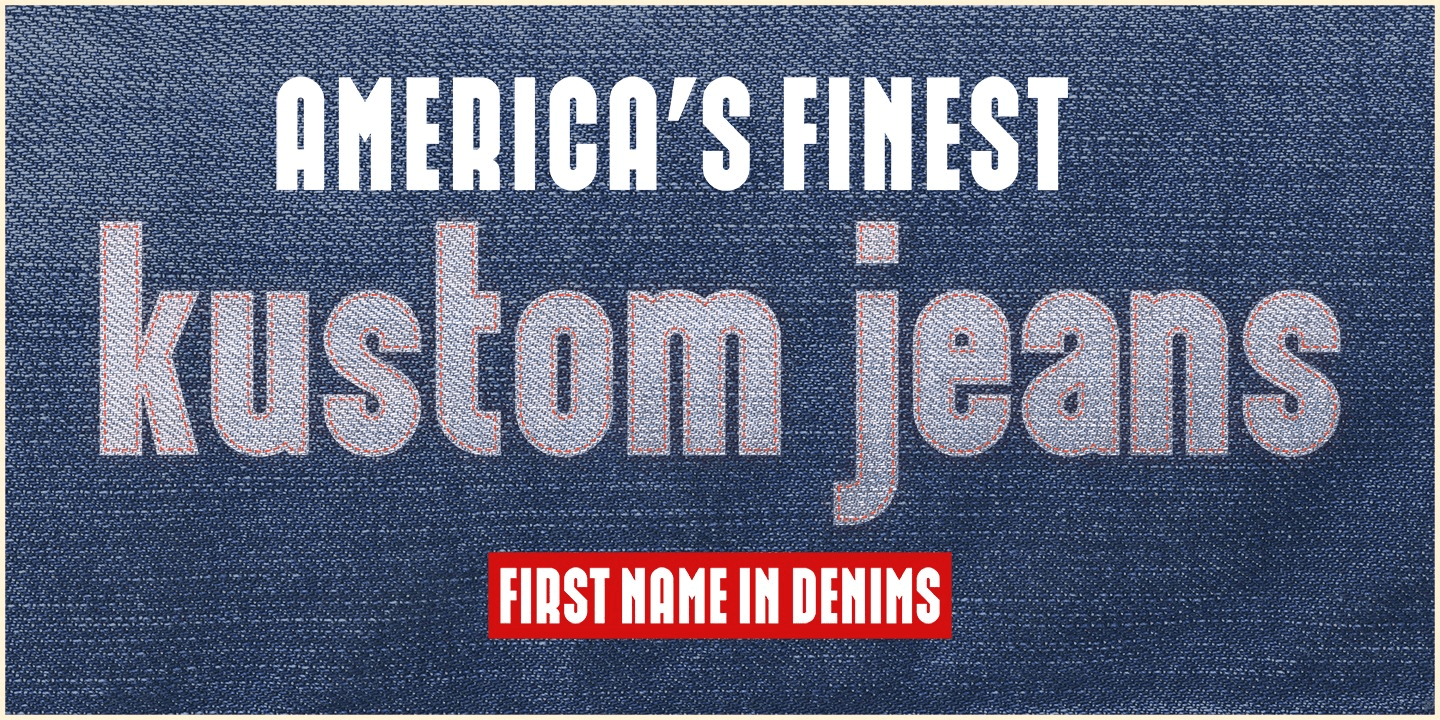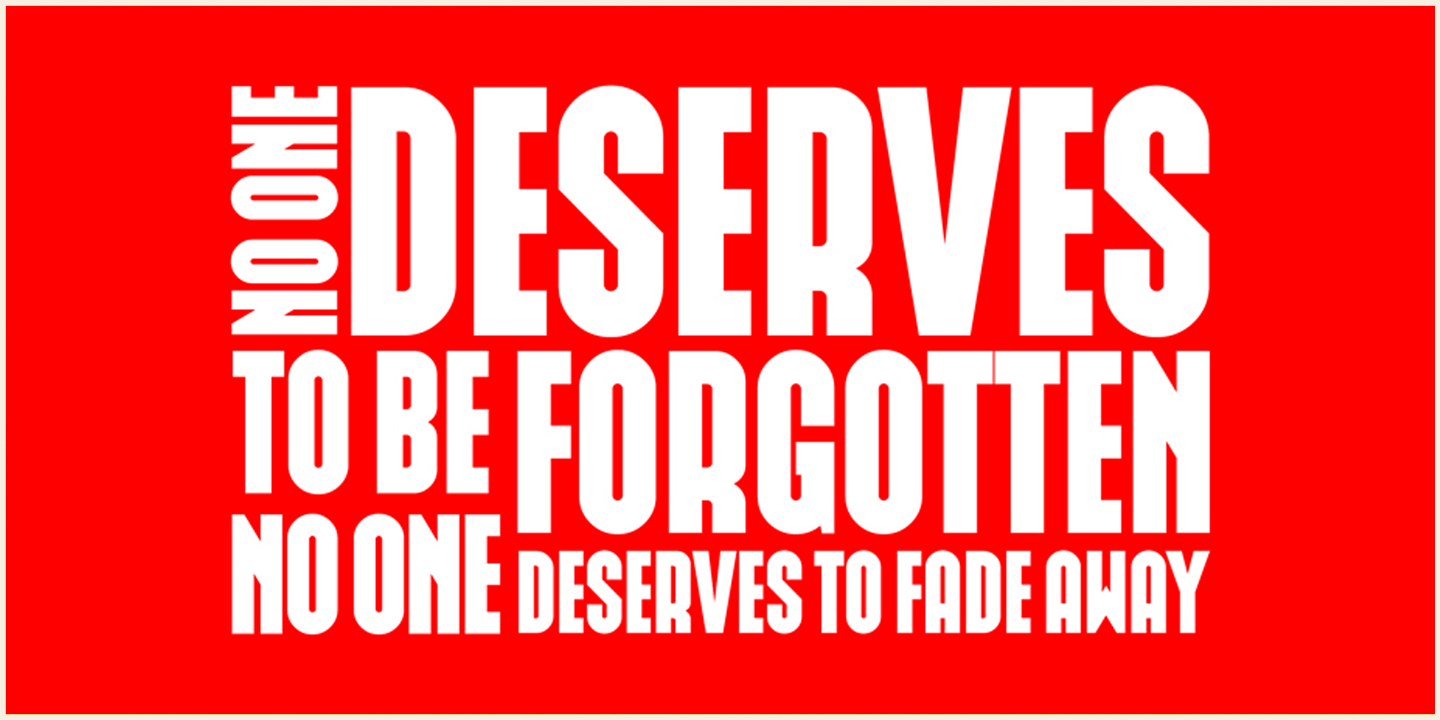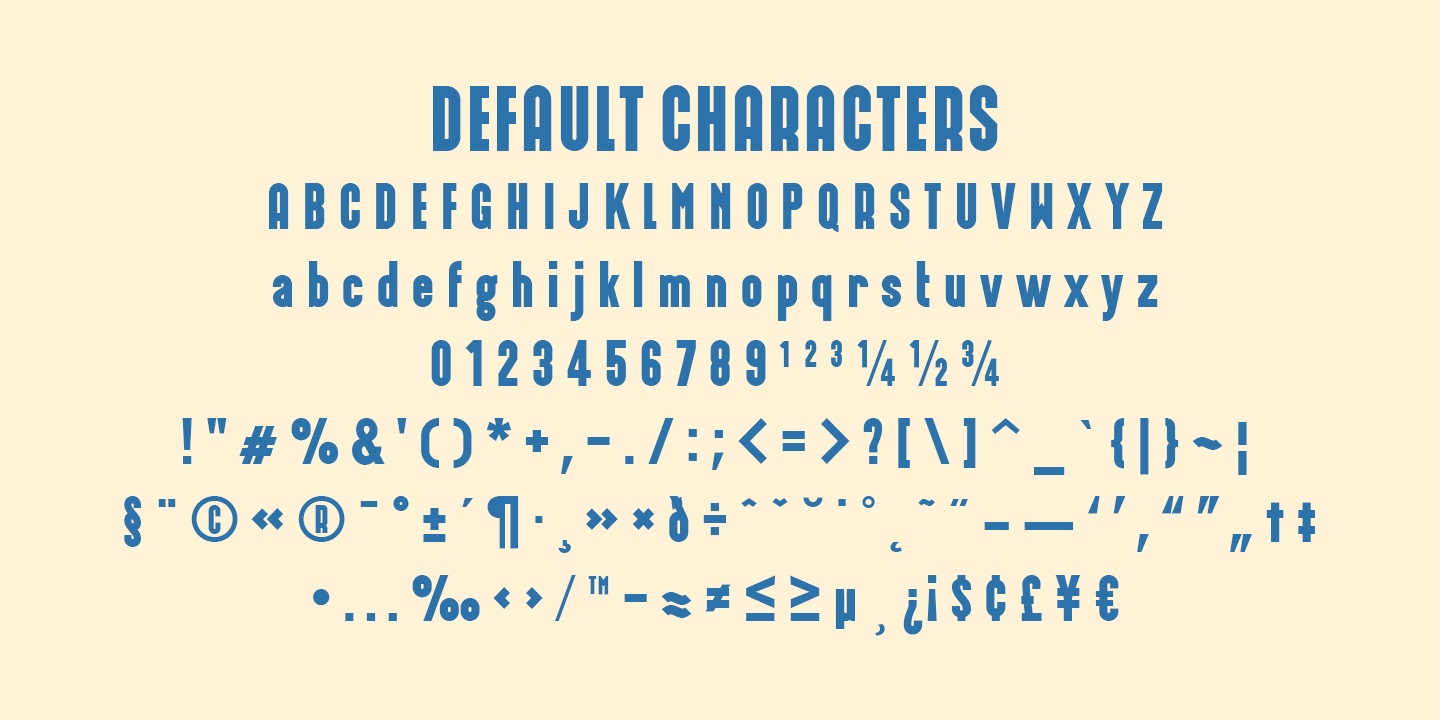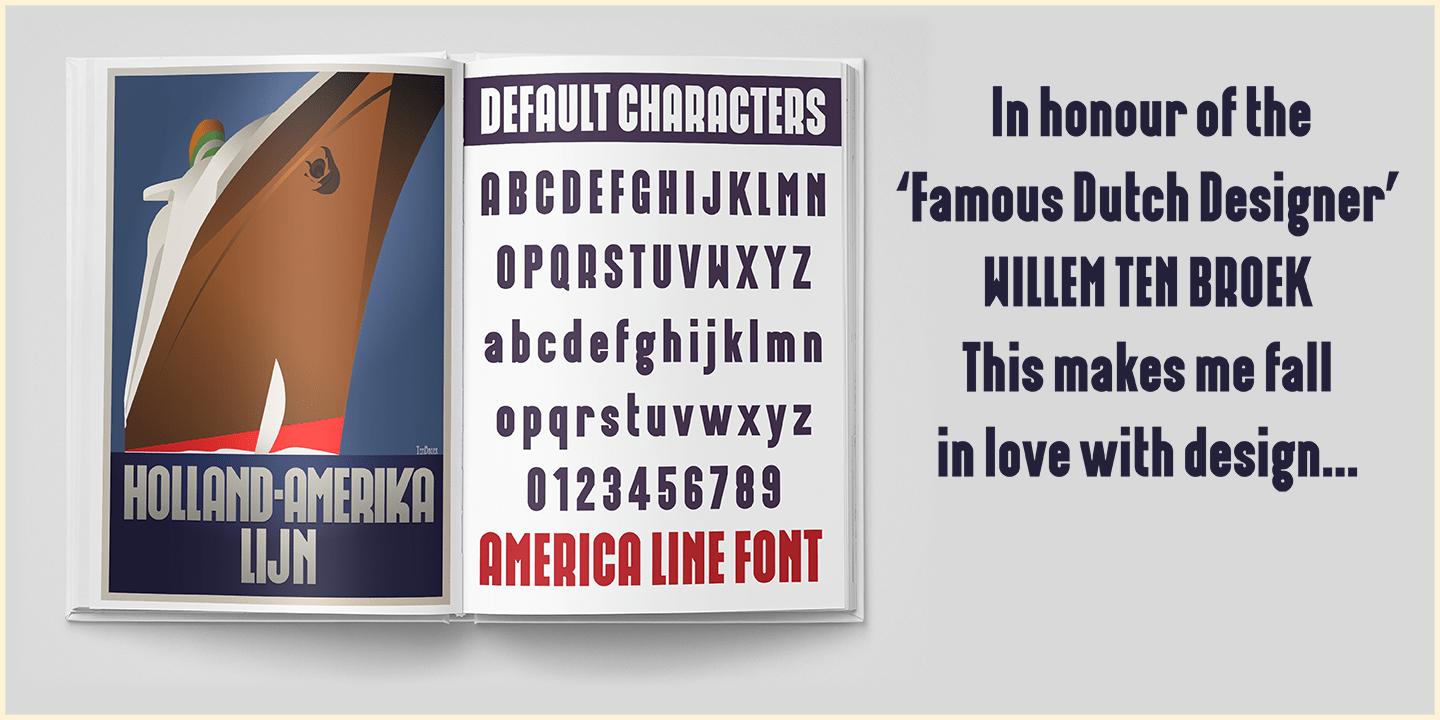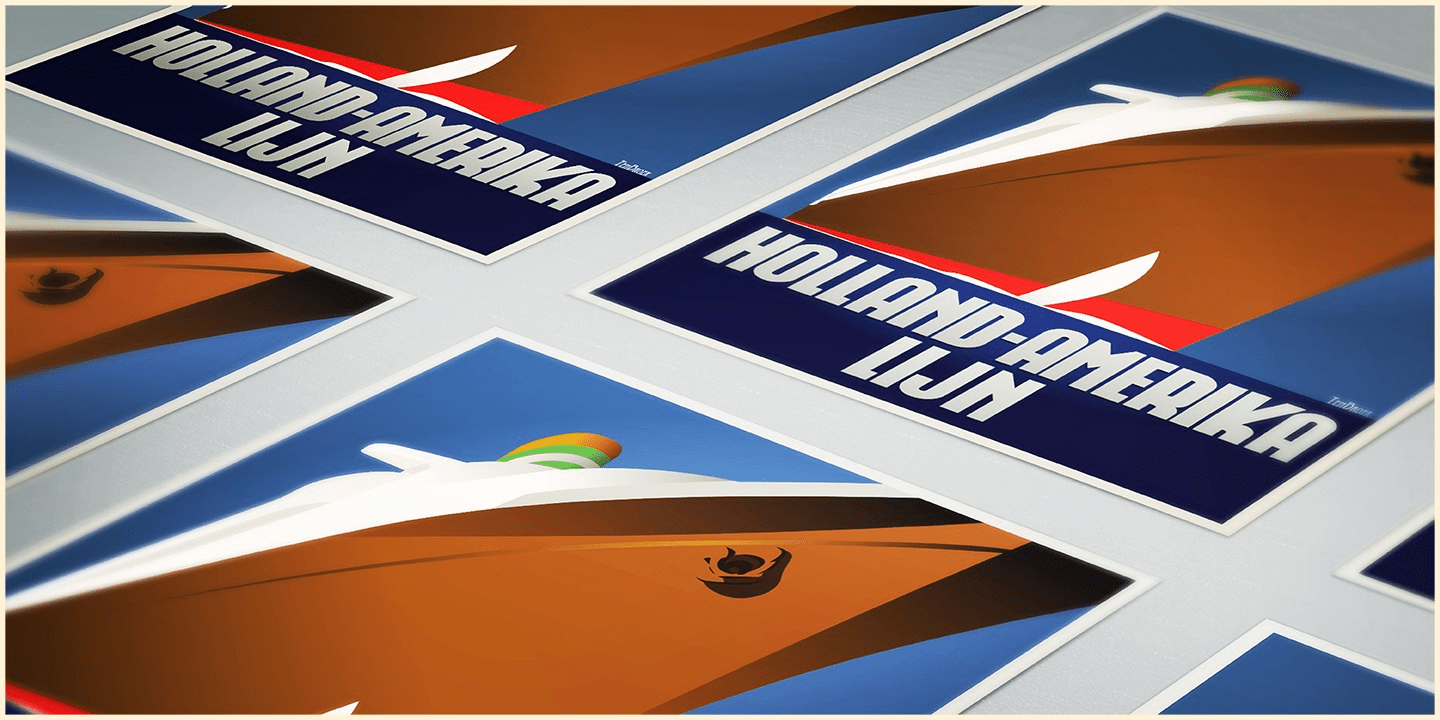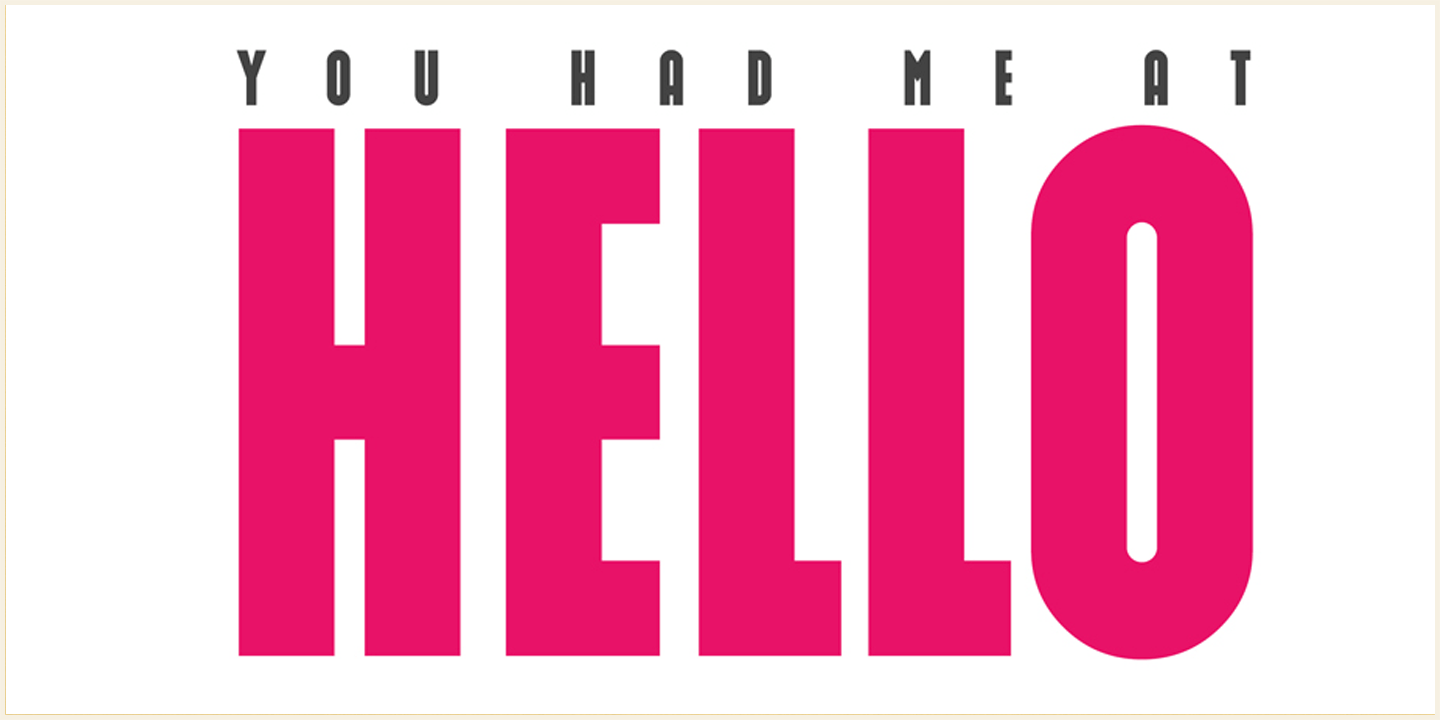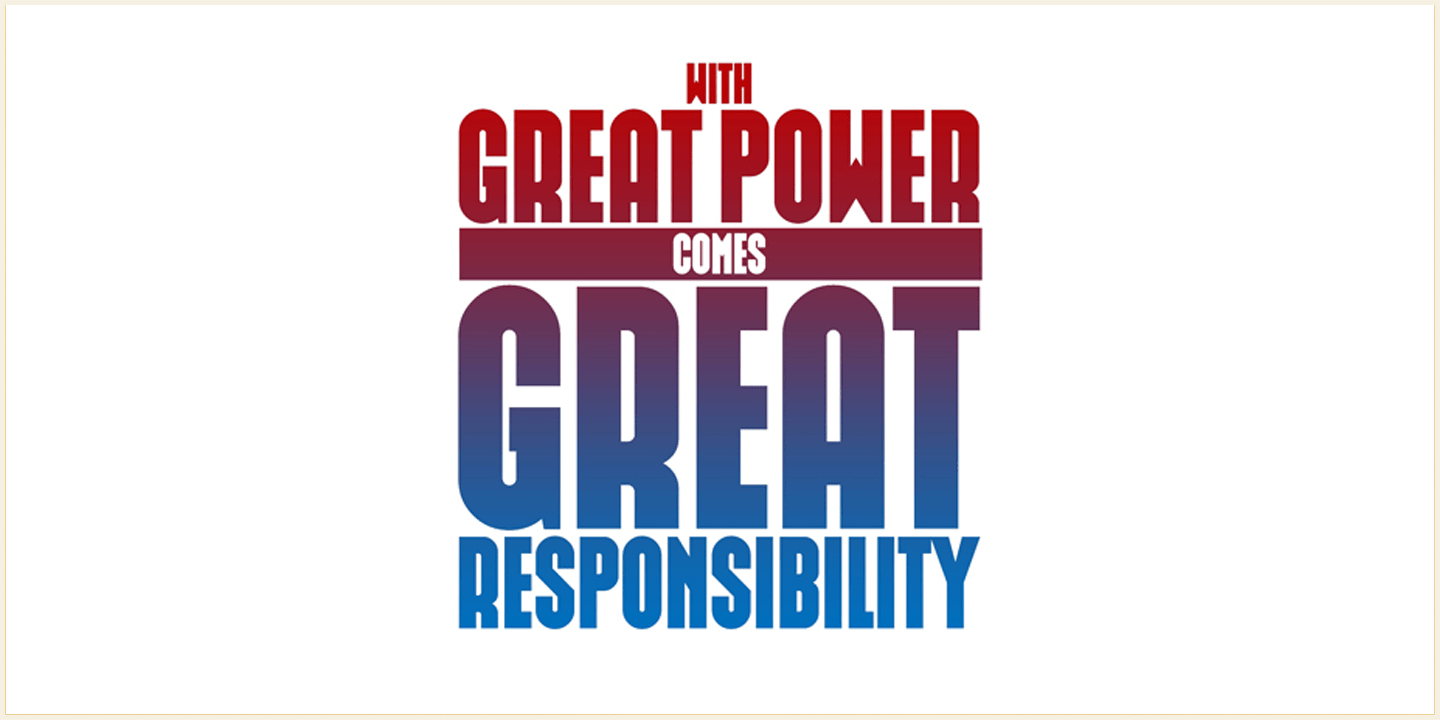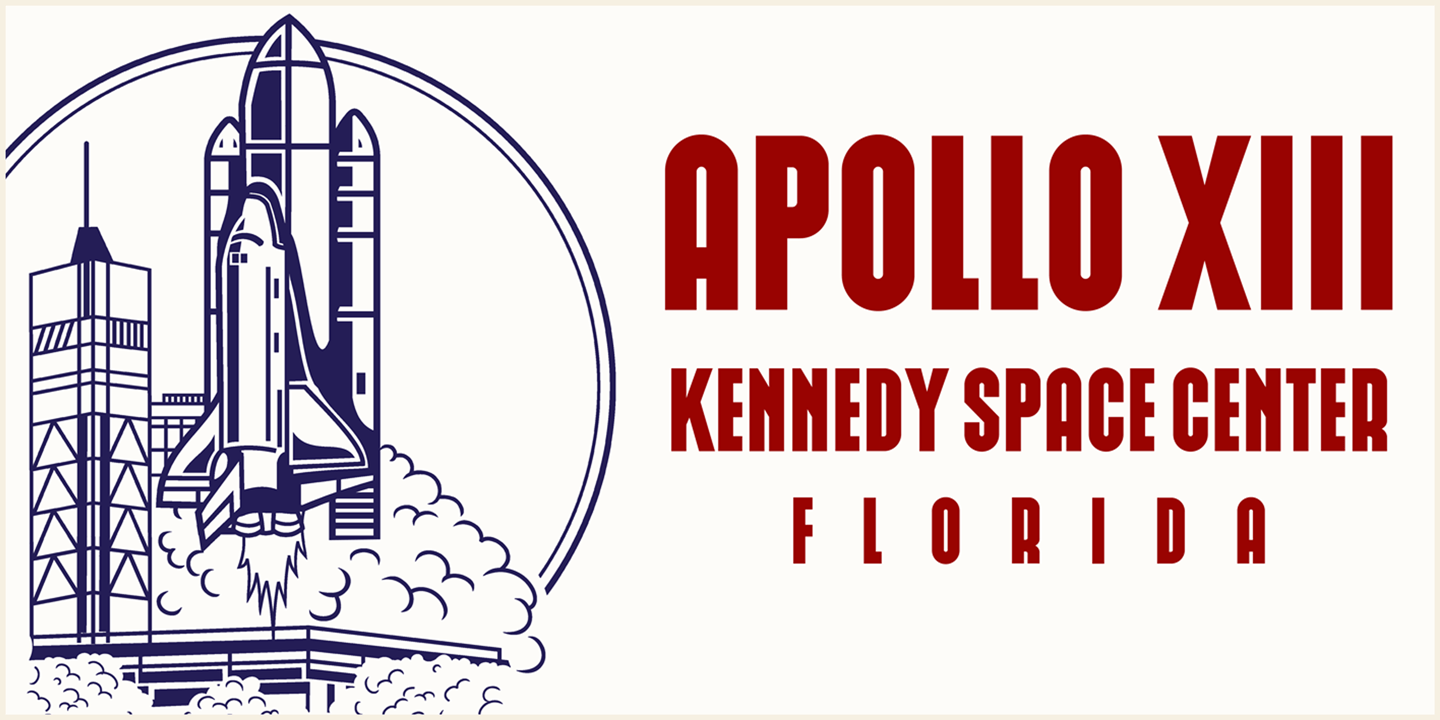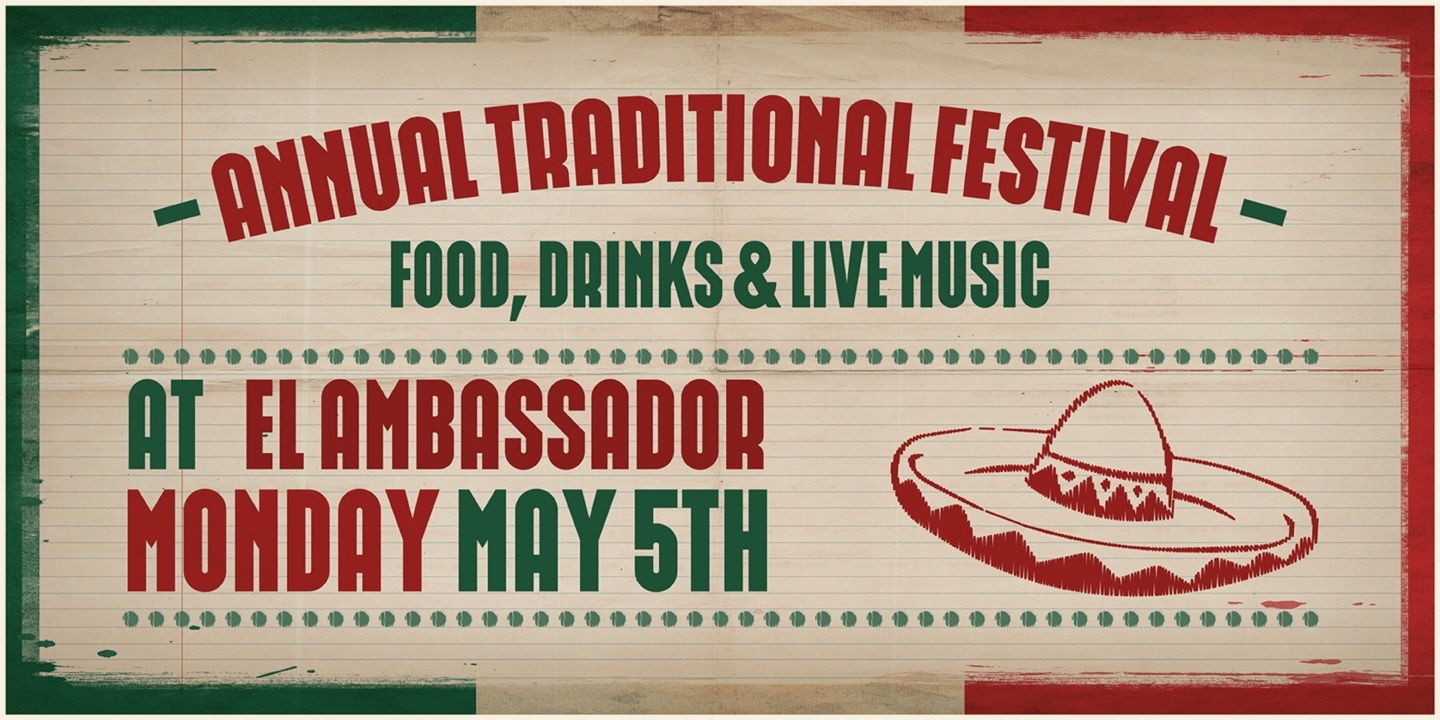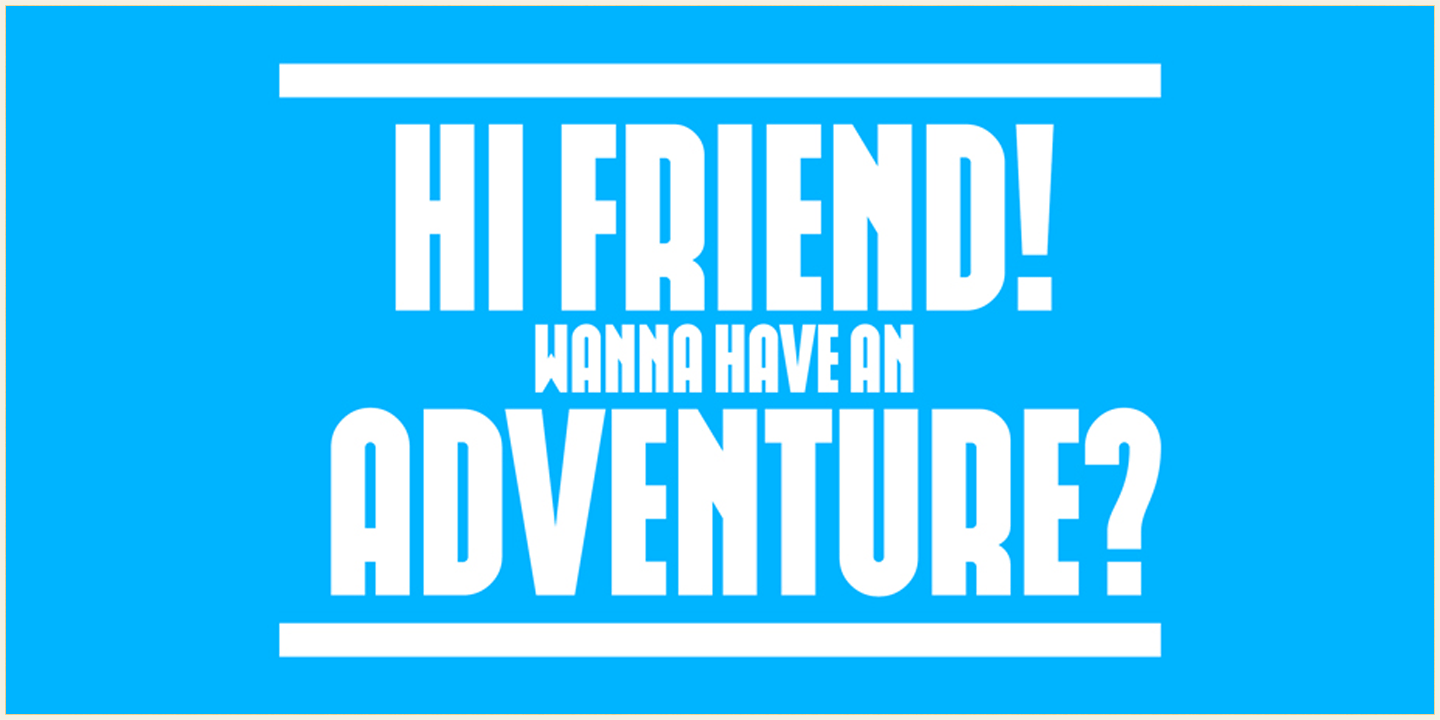
Americaline
Font Family by Kustomtype
Since its foundation in 1901, the iconic building in the Rotterdam neighborhood Kop van Zuid, is shining. Where previously the Holland America Line was housed, you will now find Hotel New York. A building with a tremendous history. We're glad to take you back in time with captivating memories.
In 1991, catering entrepreneurs Daan van der Have, Hans Loos and Dorine de Vos refurbished the at the time vacant property into a hotel/restaurant. To honor its 25 years existence, we celebrate this happening with a brand-new font, ?America Line?. A tribute to Wim ten Broek, the multi-talented Dutch Graphic Designer. As early as the 1930's before the Second World War, Wim ten Broek made the famous posters for the Holland-America Line. The influence of A.M. Cassandre here in, is clearly recognizable. Wim ten Broek also worked for HAL with large surfaces and fixed lines in which primary colors dominate, accentuated with shadows acquired by spraying technique.
He also made graphic works for, among others, the World Exhibition in New York, the Dutch railway company ?Werkspoor? and the royal Dutch steel factory ?Hoogovens?. His drawings and lettering gave me a love for the trade and naturally gave me a completely different view on fonts. That's how I slowly but surely made my way to the trade.
Based on the letters I had at my disposal from the Holland ? America Line poster, I started to complete the alphabet in the same style as the original text. I digitized everything in order to acquire a usable and modern font. The Holland America Line Font comes with uppercase and lowercase with all the needs of modern times to create a good digital font and to be able to use it for all graphic purposes. The font is ideal for headtext, posters, logos, etc... Don't hesitate and use this unique historical font! It will give your work that glamour that you will find in few fonts. Enjoy the Holland America Line.
The Holland America Line Font comes with uppercase, lowercase, numerals, punctuations so you can use the Holland America Line font to customize all your designs. The Holland America Line font is designed by Coert De Decker in 2018 and published by Kustomtype Font Foundry.
The Holland America Line Font can be used for all graphic purposes. It is ideal for headtext, posters, logos,